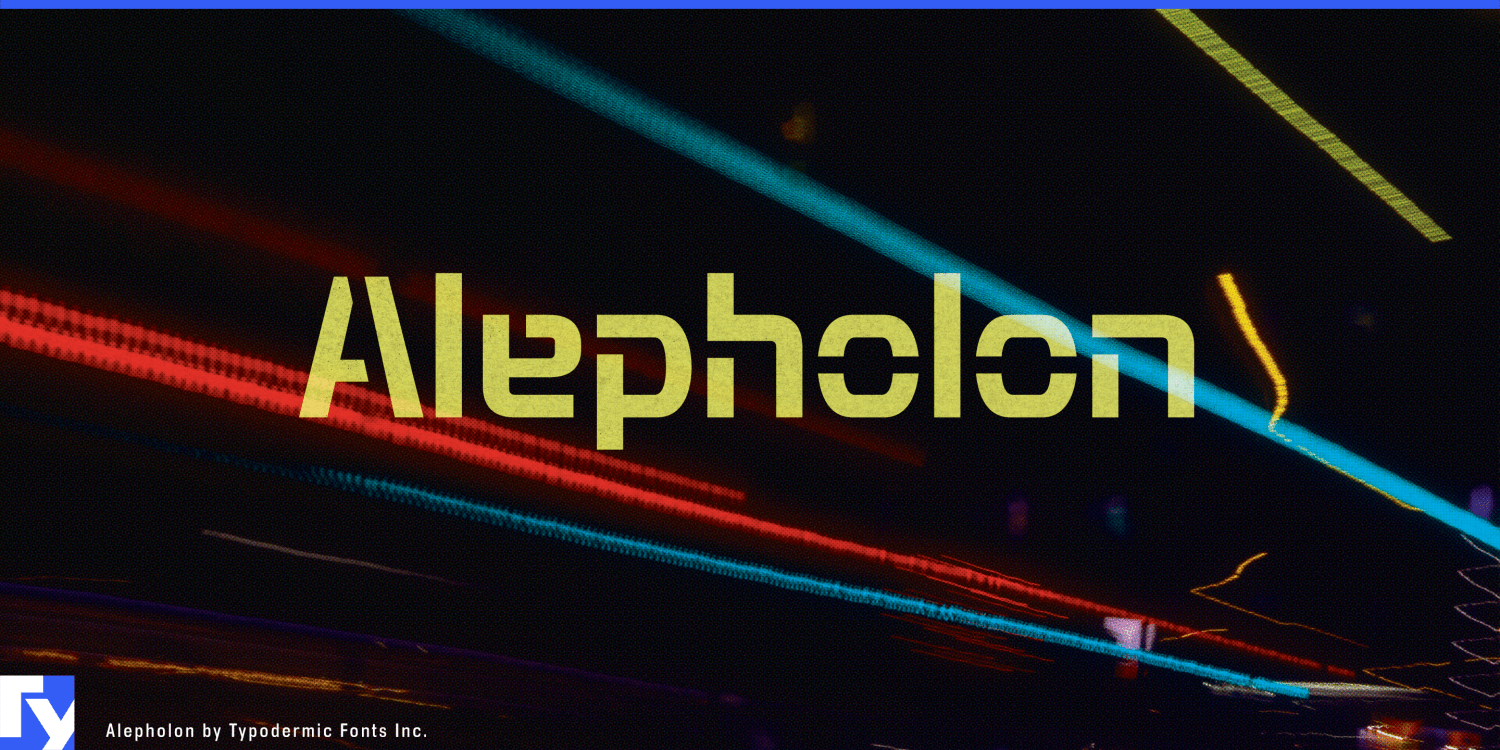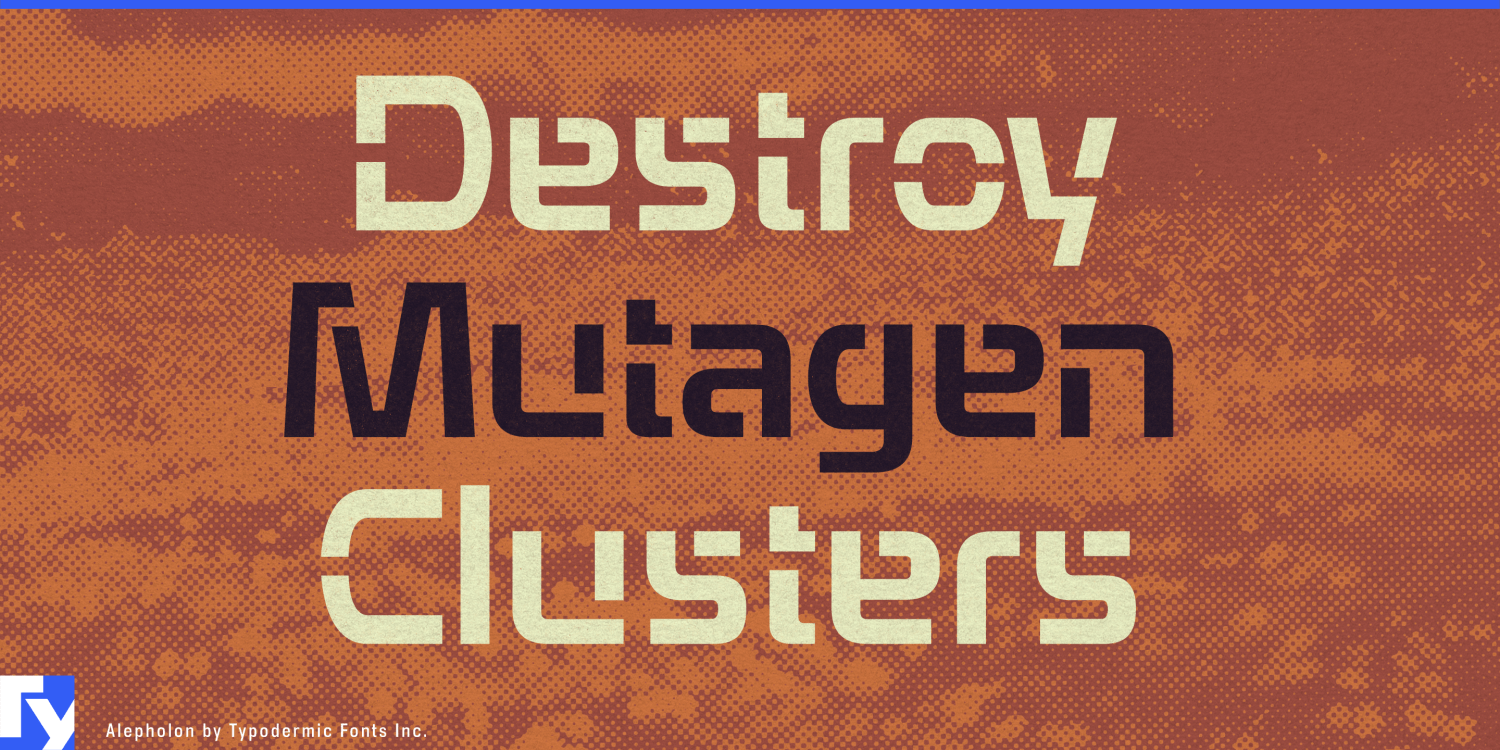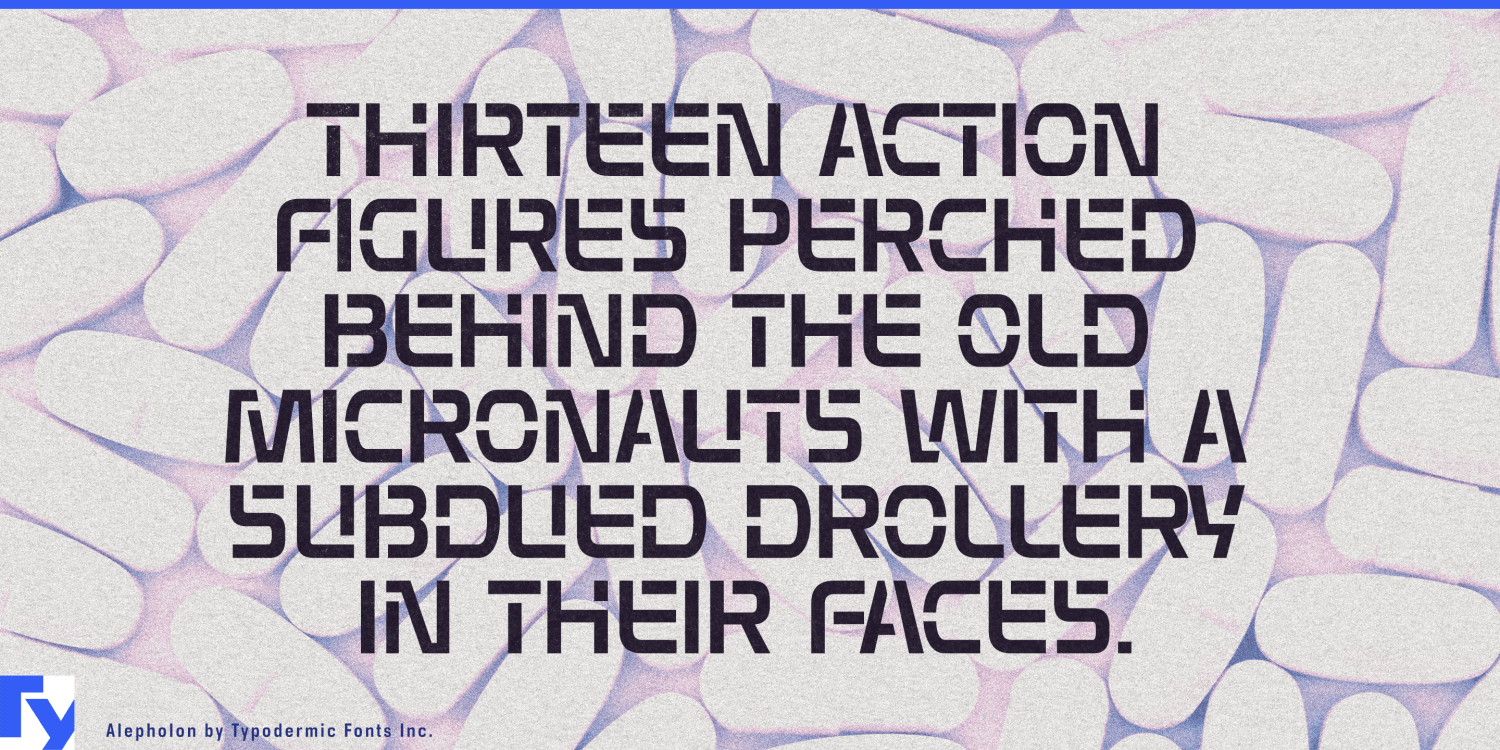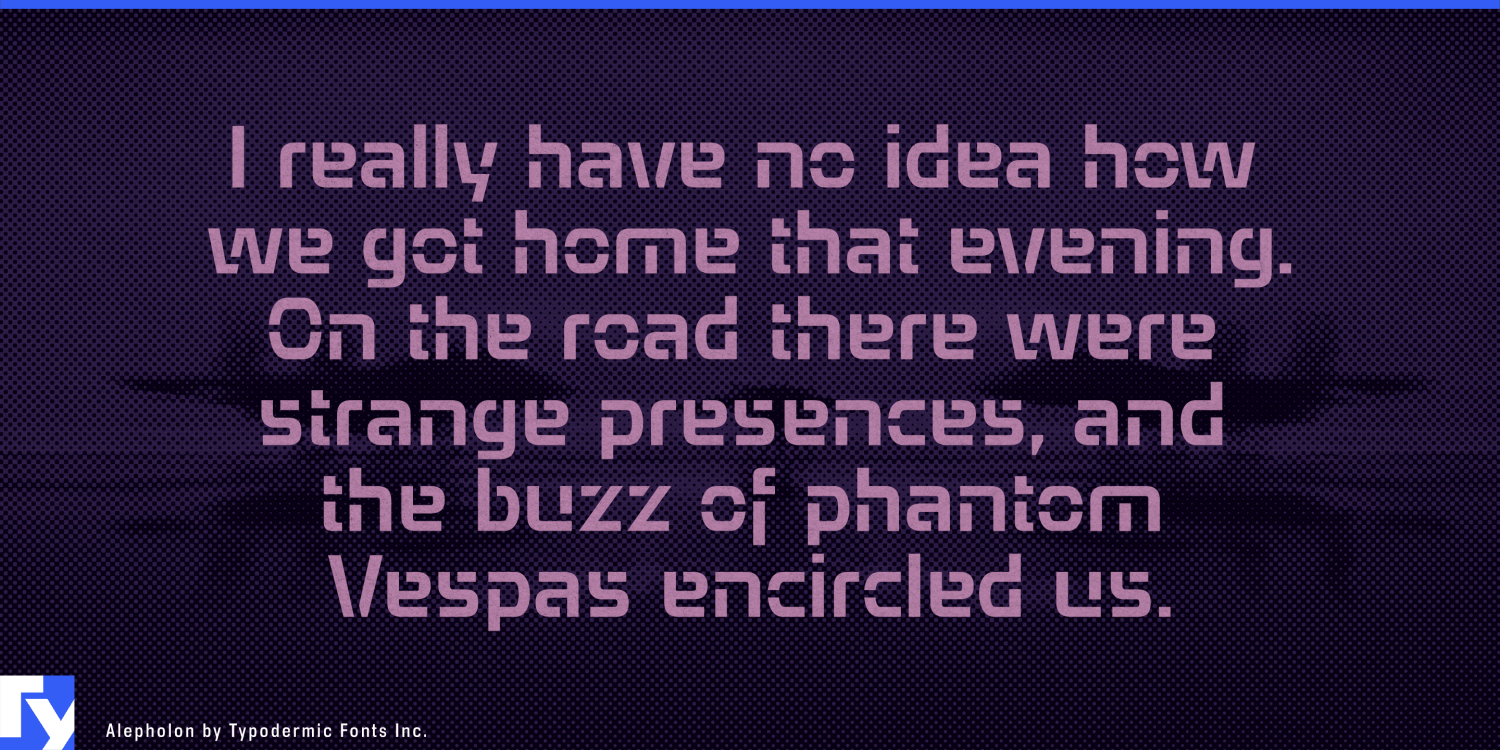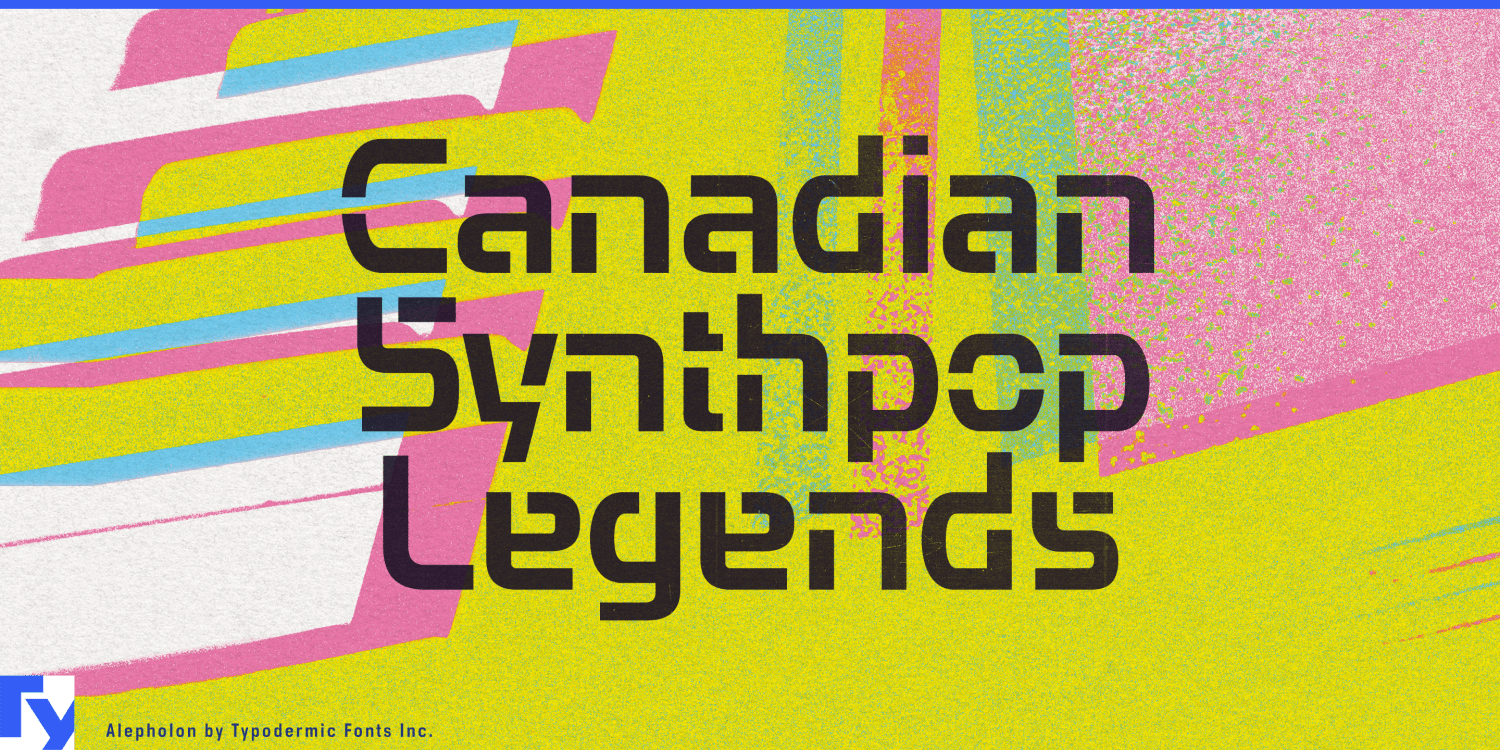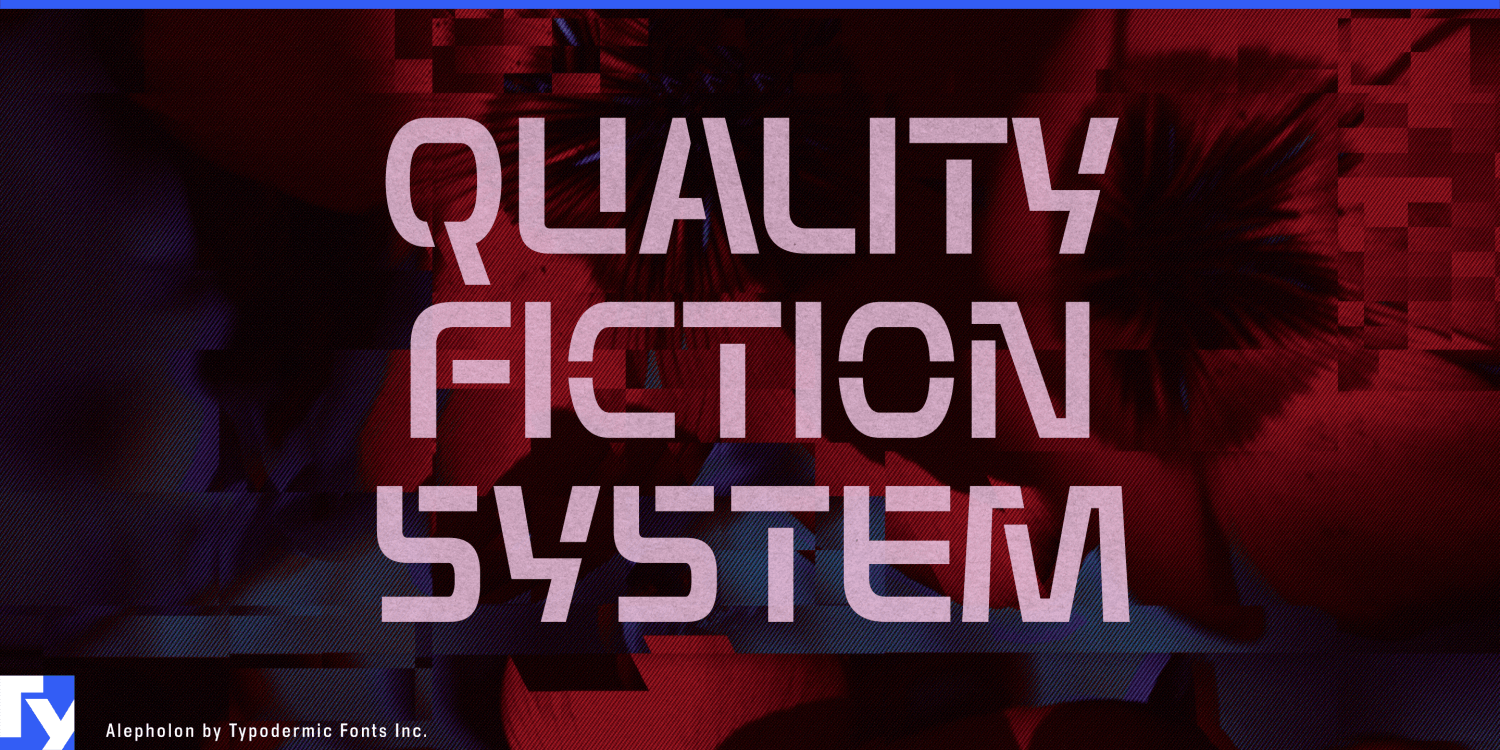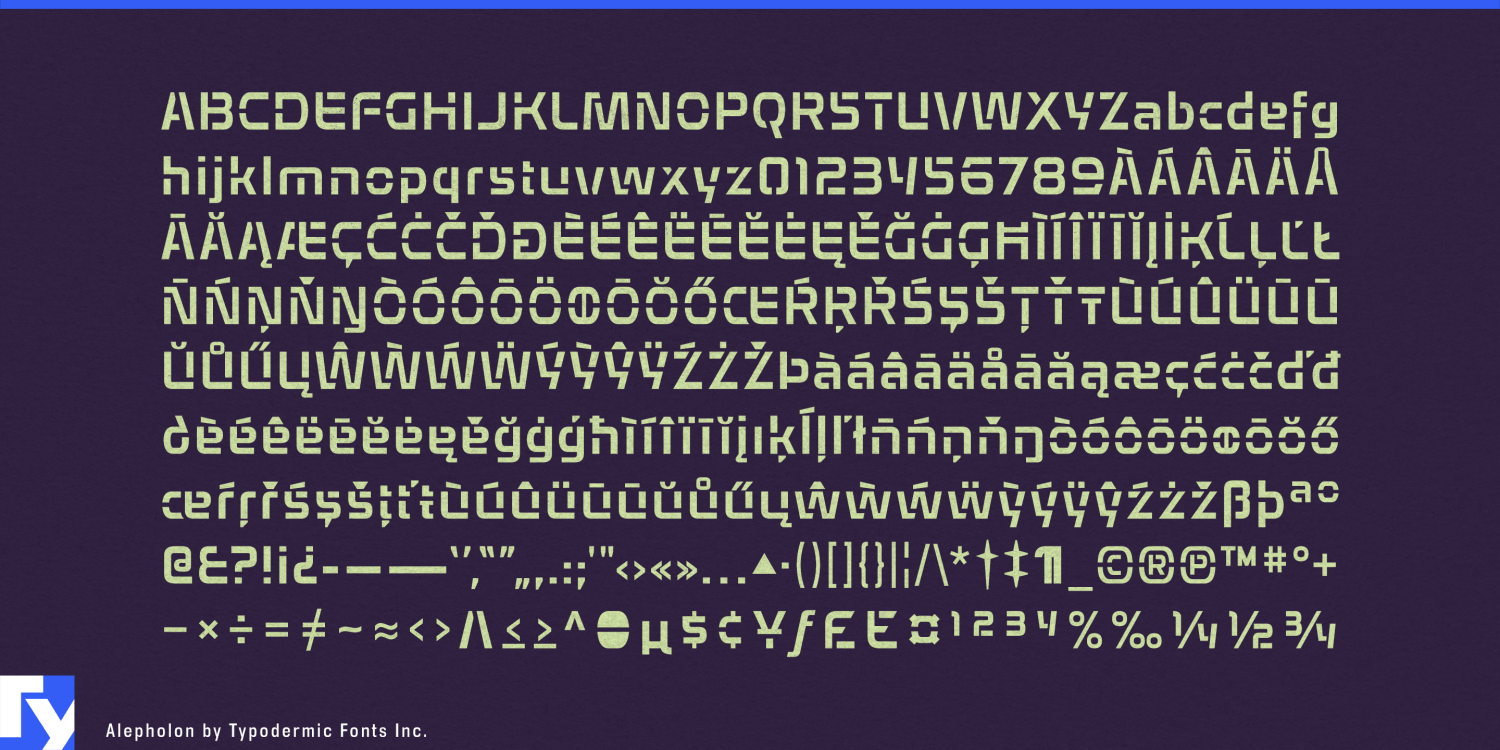
Alepholon
Sometimes a project genuinely needs stencil logic: letters that look cut, punched, masked, sprayed, or fabricated as part of a physical object. The problem is that conventional stencil forms carry a lot of historical baggage. Their familiar bridges can make new technology look military, utilitarian, or inherited from another era.
Alepholon keeps the structural idea of a stencil while rearranging the expected bridge positions. Its condensed mixed-case forms remain visibly connected, but the interruptions follow a stranger logic than conventional military or warehouse lettering. The result feels fabricated rather than nostalgic.
Robotic fabrication is a particularly strong setting. Industrial 3D printers, robotic welding cells, laser and plasma cutting systems, interchangeable toolheads, mobile microfactories, and automated production equipment all combine digital control with heavy physical processes. Alepholon can handle machine-family names, fabrication-cell identities, enclosure lettering, access-panel graphics, tool-system names, trade-show installations, and product demonstrations. Its construction is especially appropriate when the lettering itself becomes part of cut metal, perforated panels, masks, or fabricated structures.
Robotic construction and prefabrication extend the same idea to the building site. Construction robots, mobile printing systems, automated timber and metal fabrication, prefabrication lines, modular building platforms, and autonomous site equipment need names and markings that can live on machinery, containers, components, and temporary structures. Alepholon gives those systems an industrial voice without making them look like military equipment or heritage manufacturing.
Lunar construction and surface infrastructure offer an unusually literal future application. Excavation robots, cargo modules, regolith-processing systems, surface power equipment, construction vehicles, and off-world fabrication systems all need identities that suggest practical machinery rather than fantasy spacecraft. Alepholon can work for rover and excavator names, construction-system families, module identifiers, technology demonstrations, and surface-infrastructure presentations.
Autonomous heavy machinery provides an Earthbound counterpart. Mining robots, remote excavators, quarry equipment, demolition machines, forestry systems, and hazardous-environment vehicles need large identifiers on surfaces that may be dirty, scratched, replaced, or repaired. Alepholon suits machine-series names, attachment identifiers, removable-panel graphics, fleet markings, transport cases, and demonstration displays where the lettering should feel physically integrated with the equipment.
The same qualities make Alepholon useful for industrial science-fiction world-building. Automated cargo depots, orbital fabrication bays, mining colonies, repair yards, refinery modules, salvage equipment, and planetary construction systems often need stencil lettering without implying a military organization.
Alepholon’s lowercase expands that role beyond equipment codes and all-caps warnings. Mixed-case platform names, machine families, and short display phrases can retain the cut-and-connected construction without losing the distinctive stencil logic.